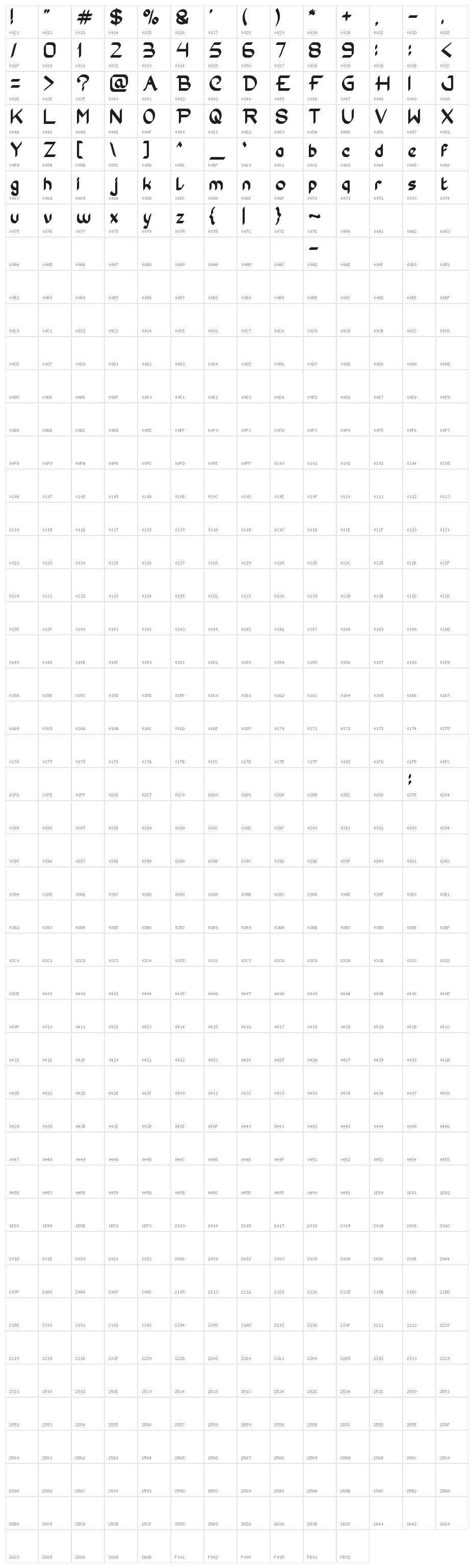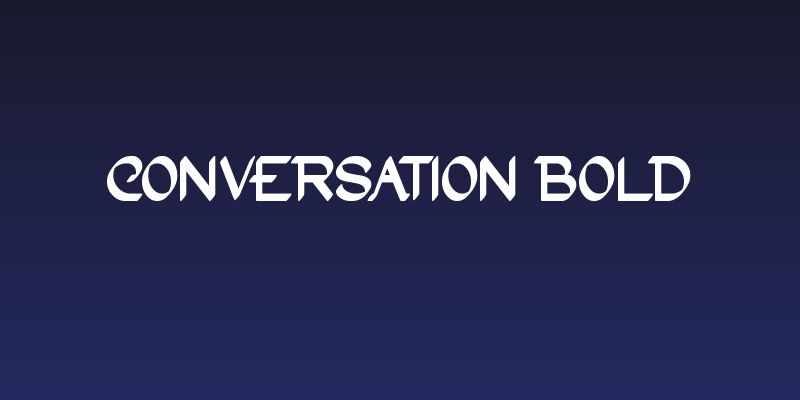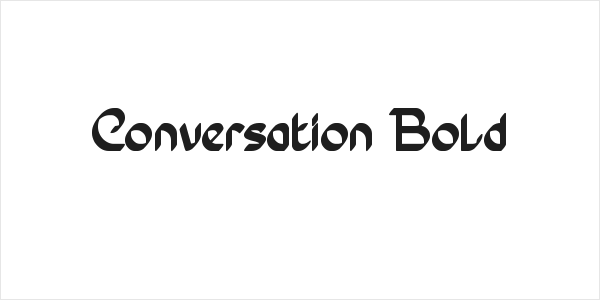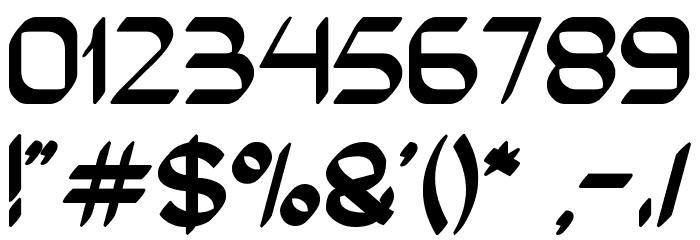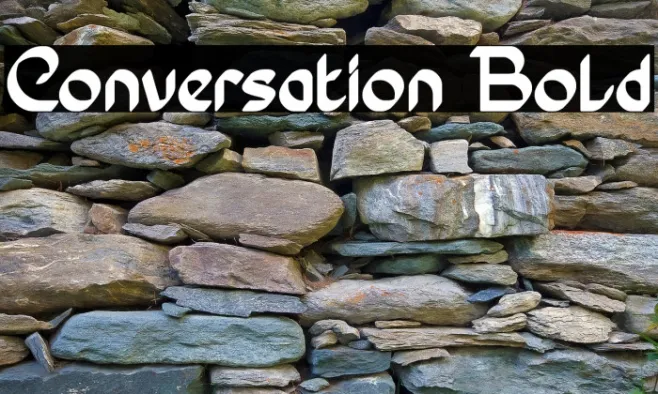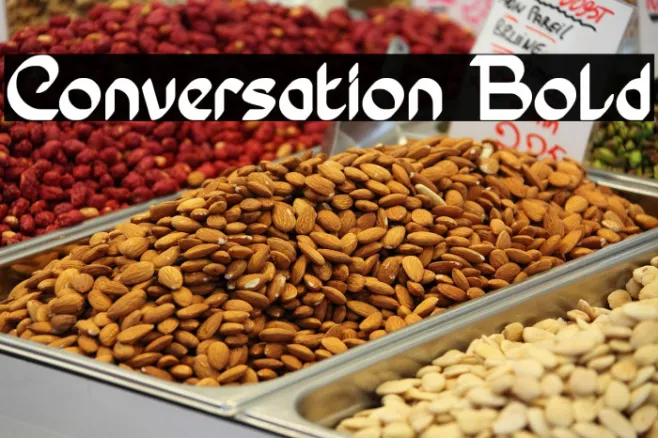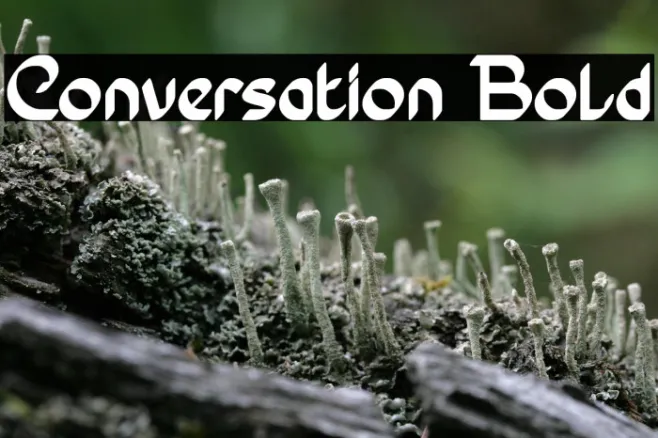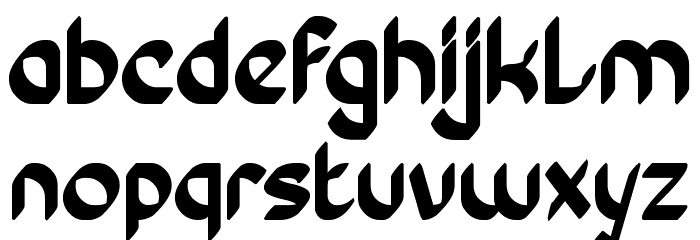
Conversation Bold Font
Conversation Bold Description
This font features a bold and dynamic style with a futuristic and geometric design. The characters are constructed with sharp angles and distinct edges, giving it a unique and modern appearance. The uppercase letters are particularly striking, with a strong presence that commands attention. The lowercase letters maintain the same angular style, ensuring consistency throughout the typeface. Numbers and special characters are designed to match the boldness and geometric nature of the alphabet, making this font versatile for various applications. The overall aesthetic is both contemporary and edgy, suitable for projects that require a standout typeface.
CONVERSATION-BOLD UPPERCASE
CONVERSATION-BOLD LOWERCASE
CONVERSATION-BOLD OTHER CHARS
| Name | Conversation Bold |
| Font Family | Conversation |